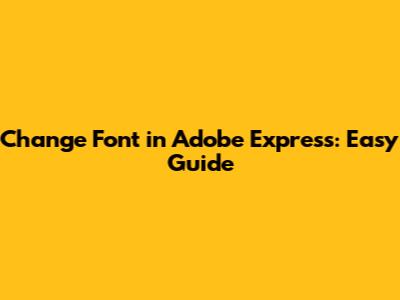
Changing fonts in Adobe Express is a fundamental skill for anyone looking to create visually appealing and consistent designs. Whether you're working on social media graphics, presentations, or marketing materials, the right font can significantly enhance the impact of your message. Adobe Express offers a user-friendly interface that makes font customization straightforward. Let's dive into how you can master this essential design element.
Understanding the Basics of Font Selection in Adobe Express
When it comes to font selection in Adobe Express, it's not just about picking what looks good; it's about understanding how different fonts communicate different feelings and messages. Typography plays a crucial role in branding and visual communication. Think about it: a playful, rounded font might be perfect for a children's book, but it would look completely out of place on a legal document. Similarly, a sleek, modern sans-serif font can give a tech company a contemporary edge, while a classic serif font might convey trustworthiness and tradition for a financial institution. So, before you even open Adobe Express, take a moment to consider the purpose and audience of your design.
Consider your brand identity. Are you trying to maintain a consistent look and feel across all your marketing materials? If so, stick to your brand's established font guidelines. If you're starting from scratch, research fonts that align with your brand's personality. Websites like FontPair can help you find complementary font combinations that work well together. Don't be afraid to experiment, but always keep your target audience in mind. A font that appeals to teenagers might not resonate with an older demographic, and vice versa. Finally, make sure the font you choose is legible and readable, especially in smaller sizes. A beautiful font is useless if no one can read it!
Step-by-Step Guide to Changing Fonts
Accessing the Text Tool: First things first, you need to access the text tool within Adobe Express. Once you've opened your project, look for the "Text" option in the toolbar. It's usually represented by a "T" icon. Click on this to add a new text box to your design or select an existing text element that you want to modify. Adobe Express offers a variety of pre-designed text templates, but for this guide, we'll focus on creating and customizing text from scratch.
Selecting Your Text: After adding a text box, type in your desired text. Now, to change the font, you'll need to select the text you've just entered. You can do this by clicking and dragging your cursor over the text or by double-clicking inside the text box. Once the text is selected, a set of formatting options will appear, usually in a panel on the right-hand side of the screen. This is where you'll find the font selection dropdown.
Navigating the Font Menu: Click on the font dropdown menu to reveal a list of available fonts. Adobe Express offers a wide range of fonts to choose from, including both free and premium options. You can scroll through the list to browse the fonts, or you can use the search bar to quickly find a specific font by name. Adobe Express also categorizes fonts by style (e.g., serif, sans-serif, script) to help you narrow down your choices. As you hover over different fonts, Adobe Express will usually display a live preview of the font in your text box, allowing you to see how it looks before you commit to the change.
Advanced Font Customization Options
Beyond simply changing the font, Adobe Express provides several options for further customizing your text. These include adjusting the font size, style (bold, italic, underline), color, and alignment. You can also adjust the letter spacing (tracking) and line height (leading) to fine-tune the appearance of your text.
Font Size and Style: To change the font size, look for the font size control, usually represented by a number with up and down arrows. You can either type in a specific value or use the arrows to increase or decrease the size incrementally. To apply bold, italic, or underline styles, click on the corresponding icons in the formatting panel. Keep in mind that not all fonts support all styles, so the available options may vary depending on the font you've chosen.
Color and Alignment: Changing the text color is as simple as clicking on the color picker and selecting a new color from the color palette. You can also enter a specific hexadecimal color code for precise color matching. To adjust the text alignment (left, center, right, or justified), click on the alignment icons in the formatting panel. Proper alignment can significantly improve the readability and visual appeal of your text.
Letter Spacing and Line Height: These are often overlooked, but they can make a big difference in the overall appearance of your text. Letter spacing (tracking) refers to the space between individual letters, while line height (leading) refers to the space between lines of text. Increasing the letter spacing can make your text feel more open and airy, while decreasing it can make it feel more compact. Similarly, increasing the line height can improve readability by giving each line of text more room to breathe. Experiment with these settings to find the perfect balance for your design.
Best Practices for Font Usage in Adobe Express
Choosing the right fonts and using them effectively is crucial for creating impactful designs. Here are some best practices to keep in mind when working with fonts in Adobe Express:
Limit the Number of Fonts: Using too many different fonts in a single design can create a cluttered and unprofessional look. As a general rule, stick to a maximum of two or three fonts per design. Choose one font for headings and another for body text, and use variations in size and style to create visual hierarchy.